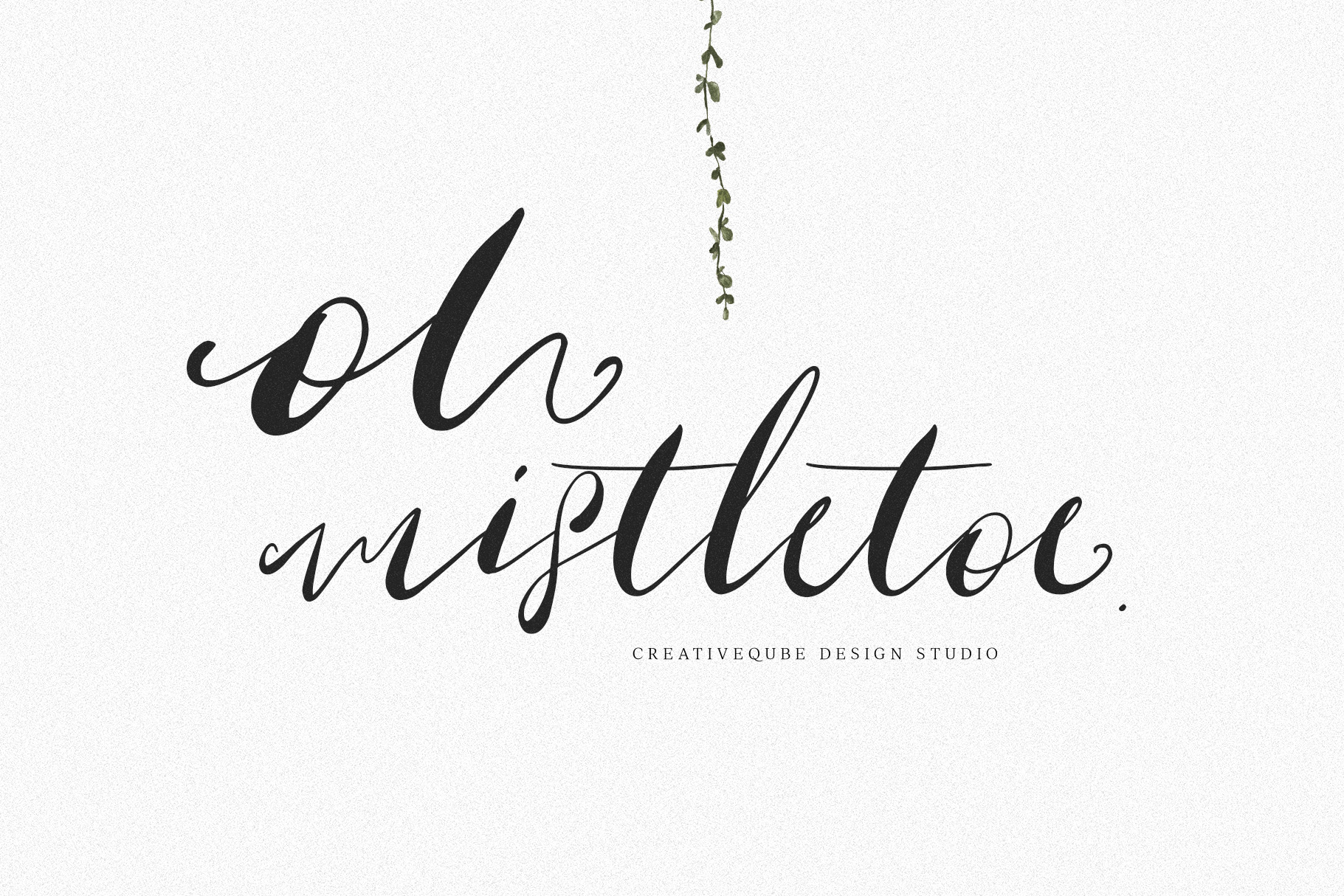
Oh Mistletoe Script Font
Introducing Oh Mistletoe script font.
This fun irregular happy font is perfect for Christmas cards and notes! The "uppercase" set has initial swashes and there is a set of ending letters too.
International characters included.